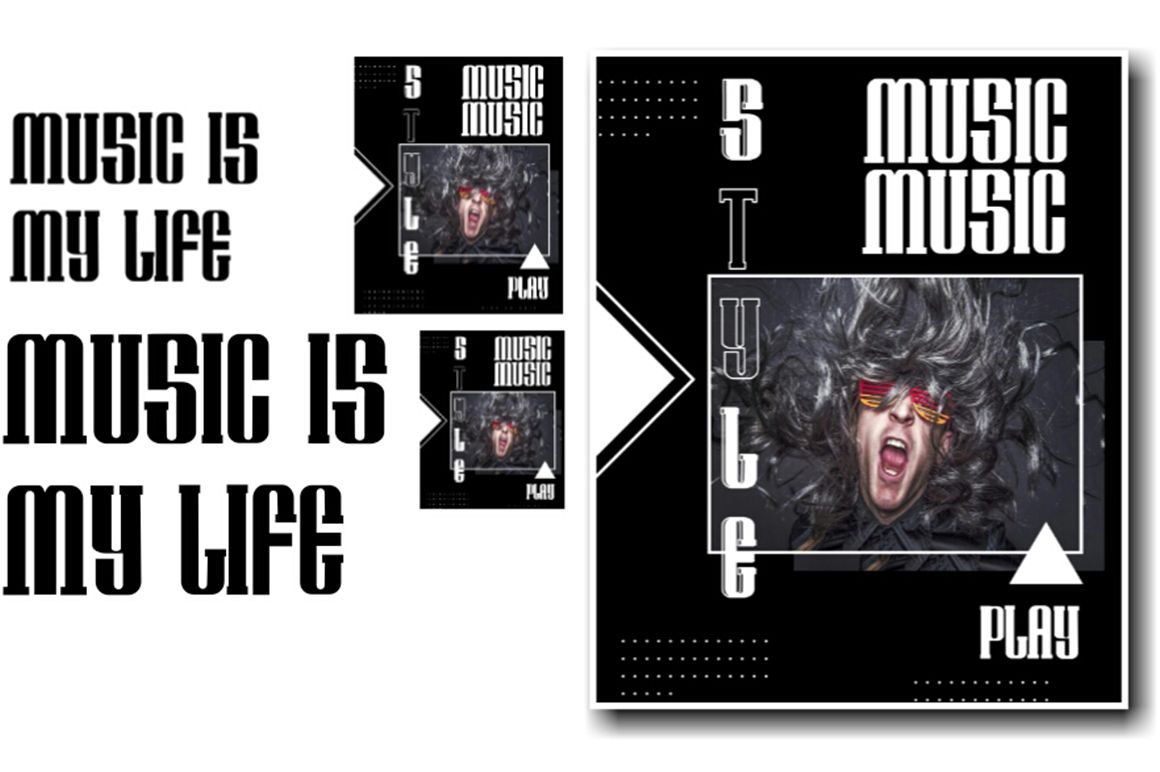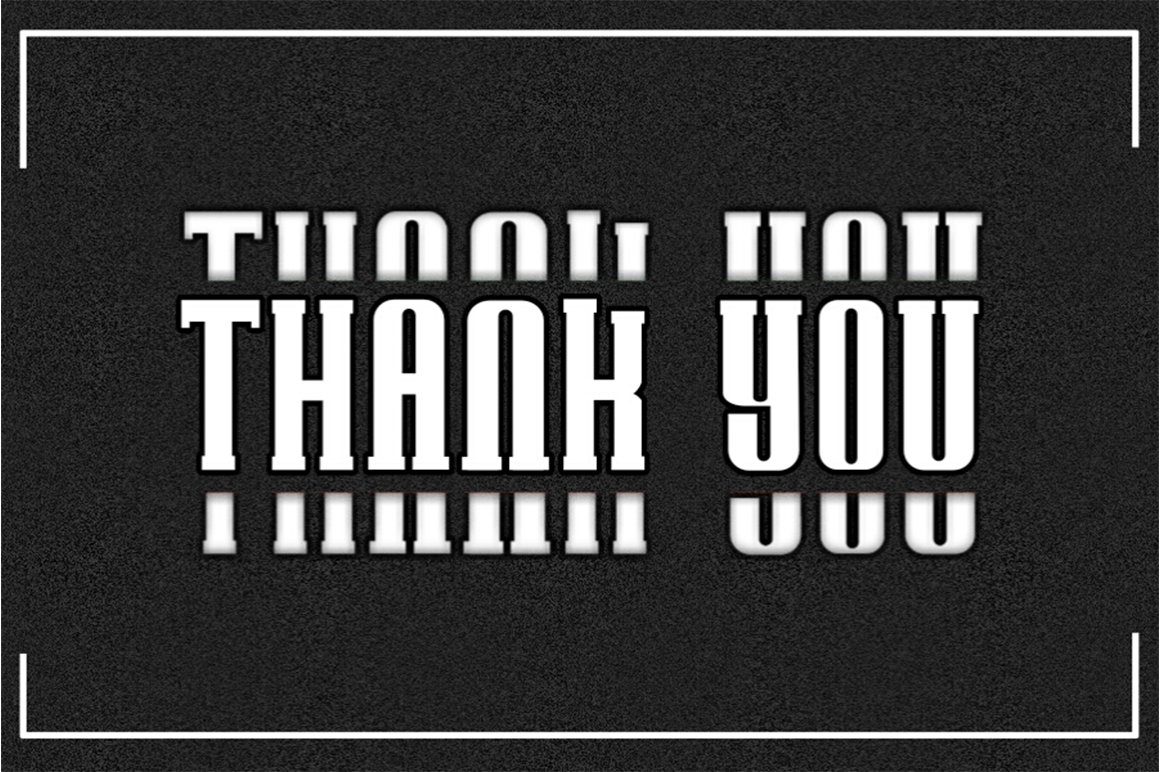
Hollywood Display Font
It’s a tall and fancy display font. No matter the topic, this font will be an incredibly asset to your fonts’ library, as it has the potential to elevate any creation.